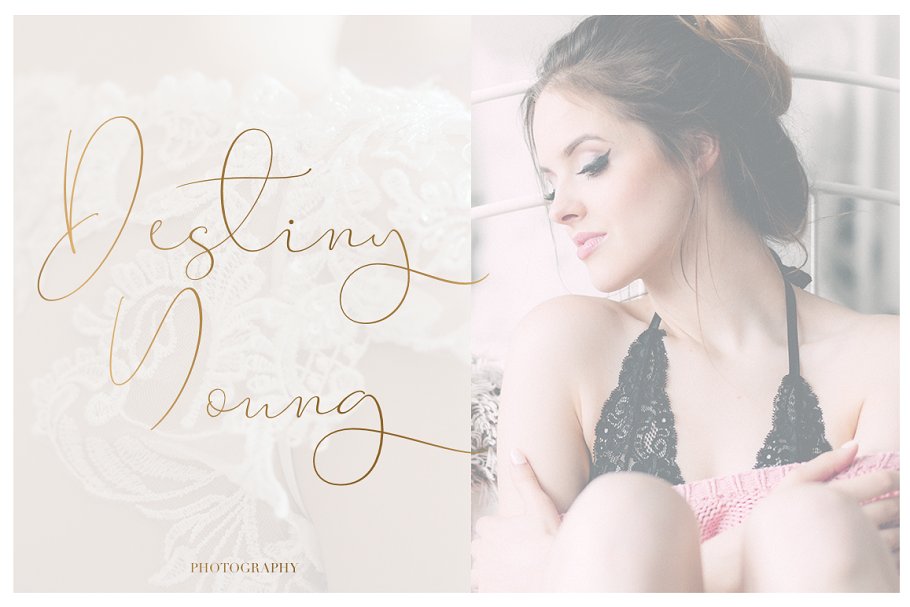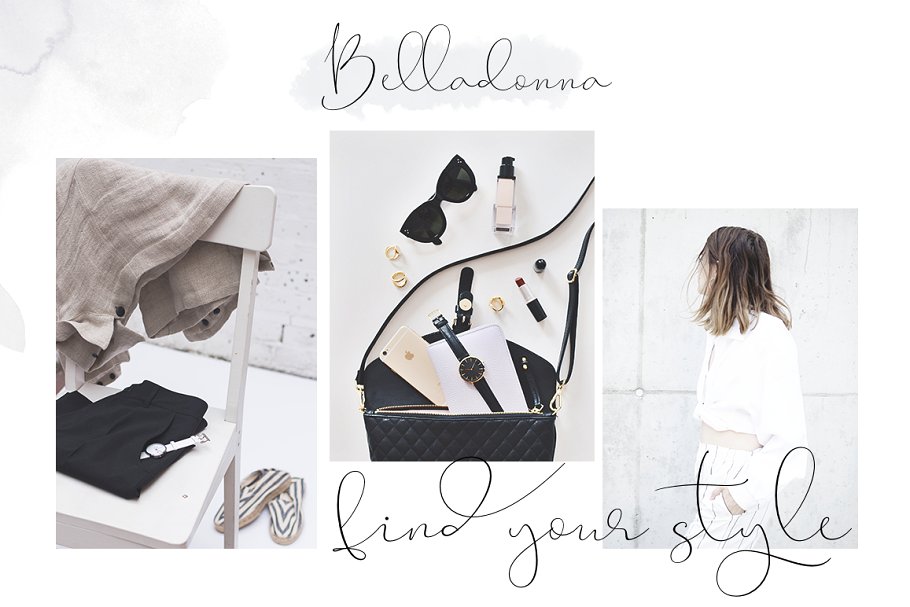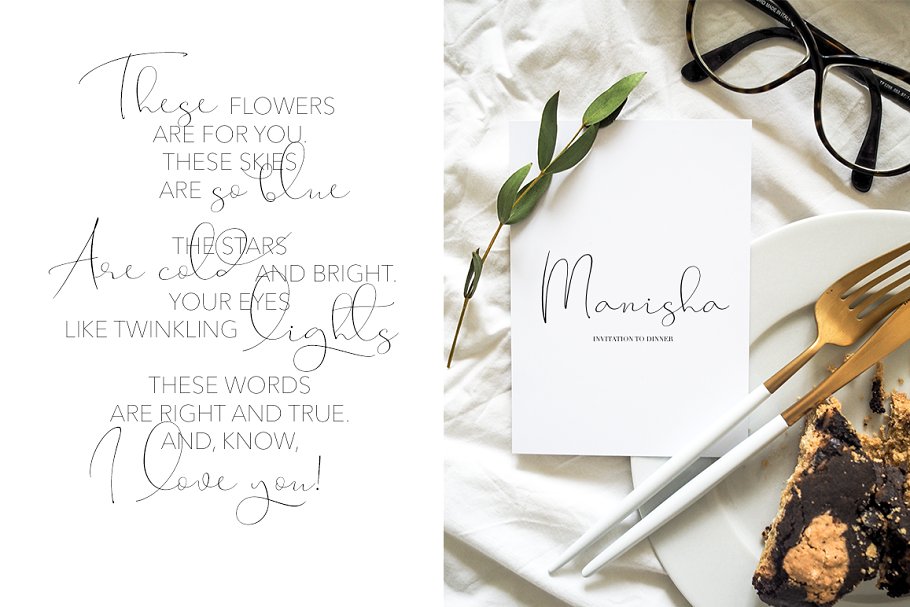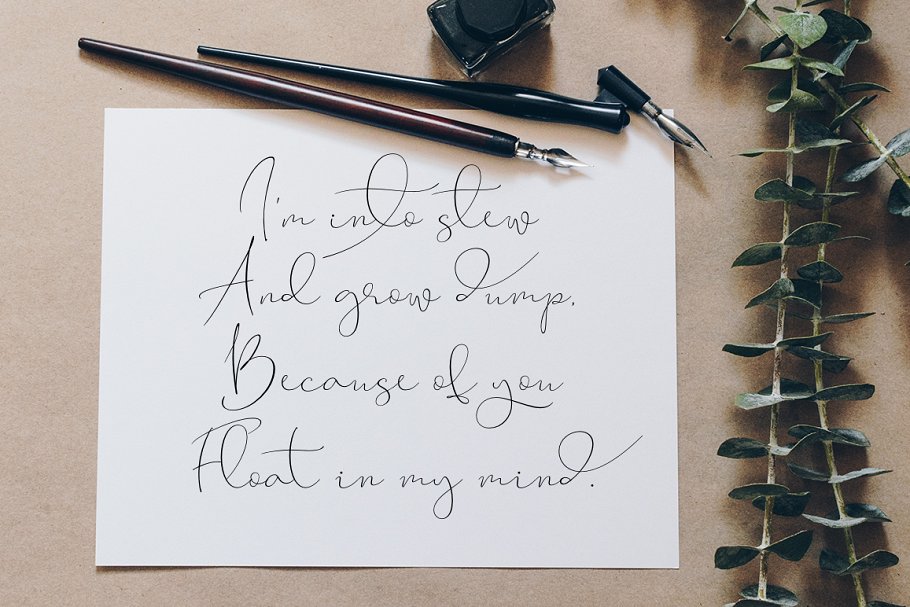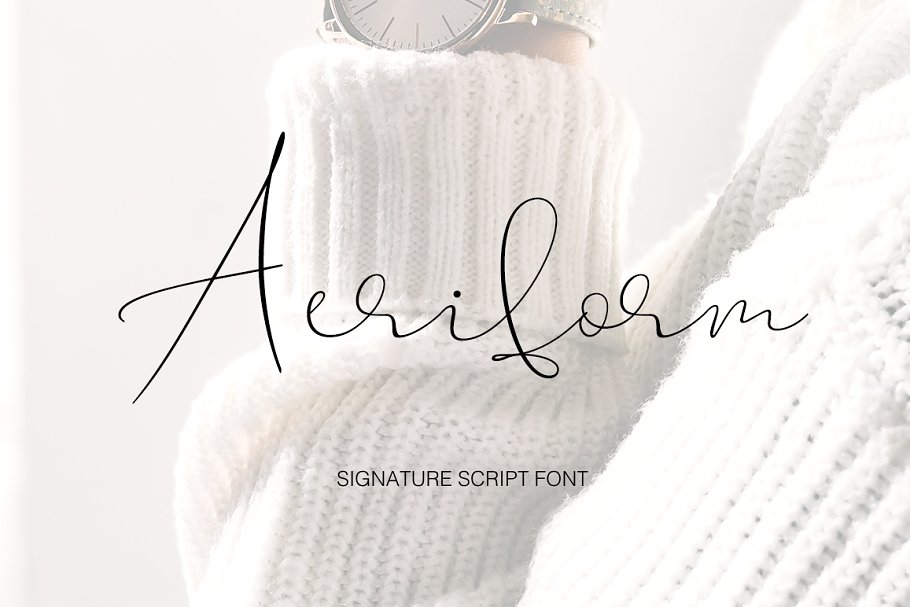
Aeriform Font
This font is ideal for branding and decorate your any project, are perfect for wedding invitation or your blog. Also with their help, you can create a logo or beautiful frame for your home. Or just use for your small business, book covers, stationery, marketing, magazines and more. Special for you I prepared a lot alternates and ligatures.